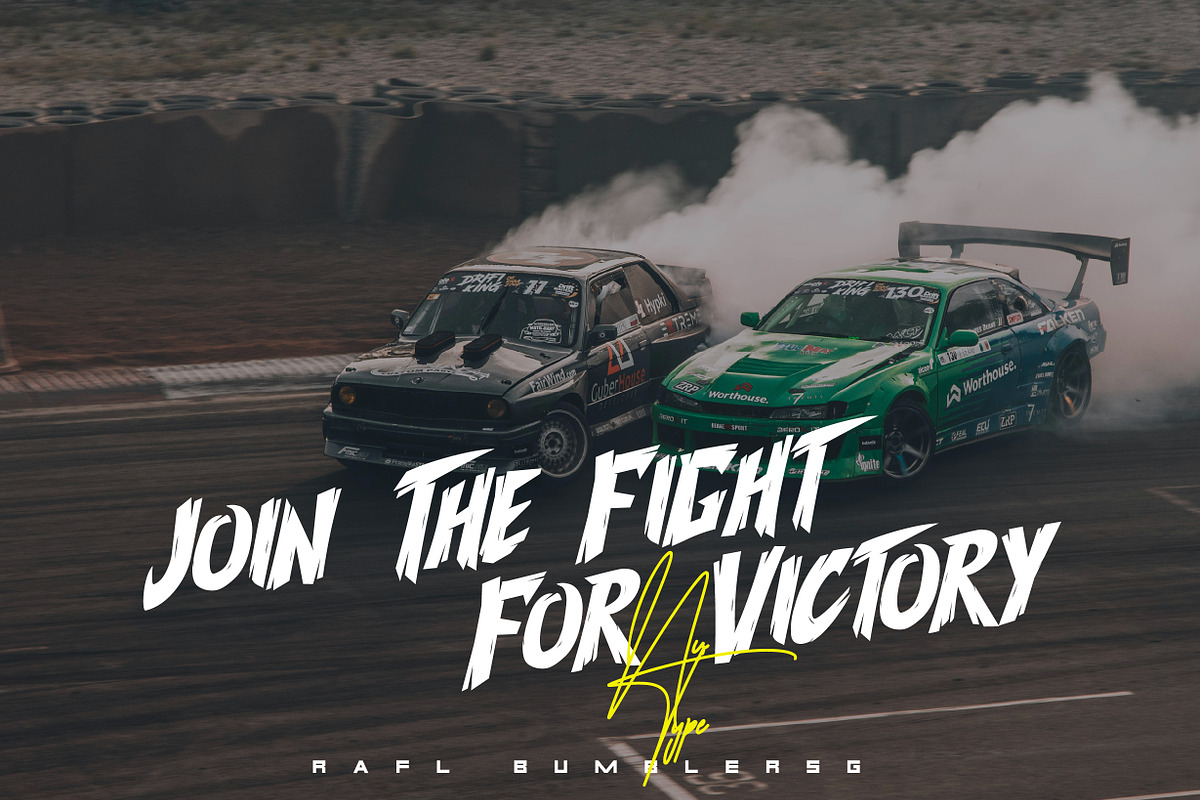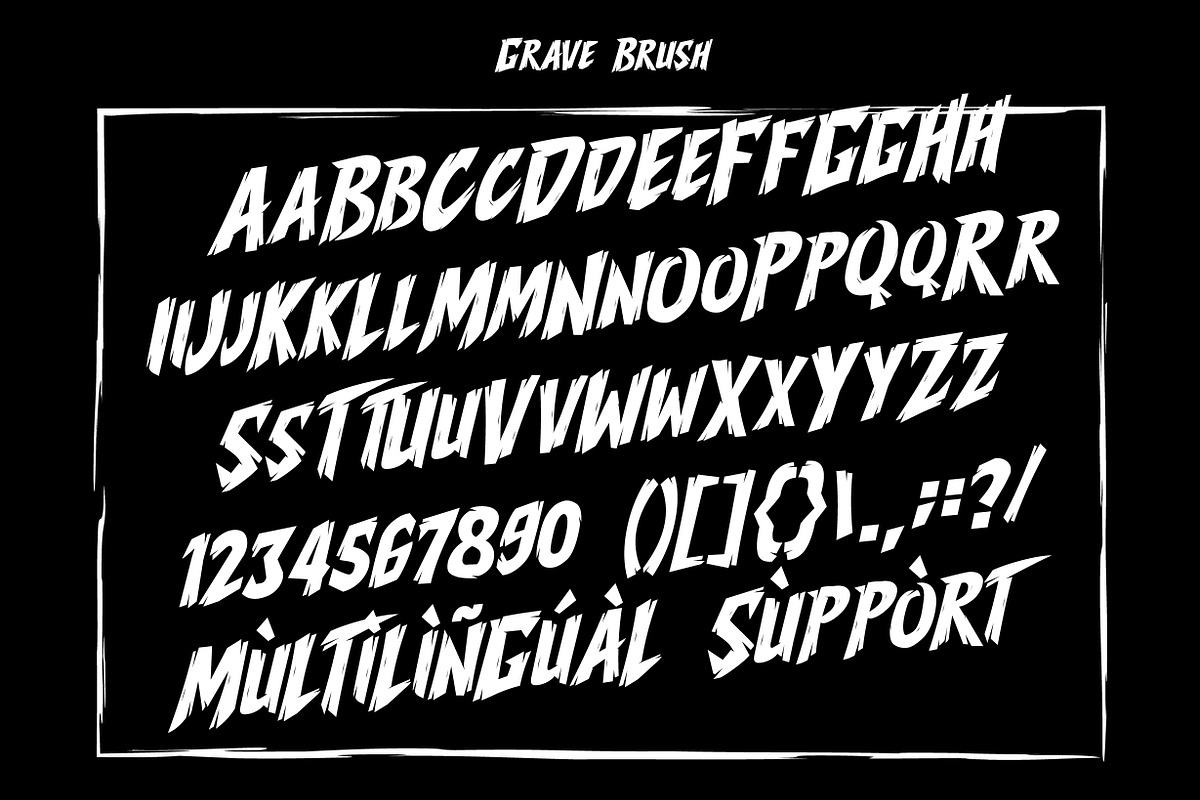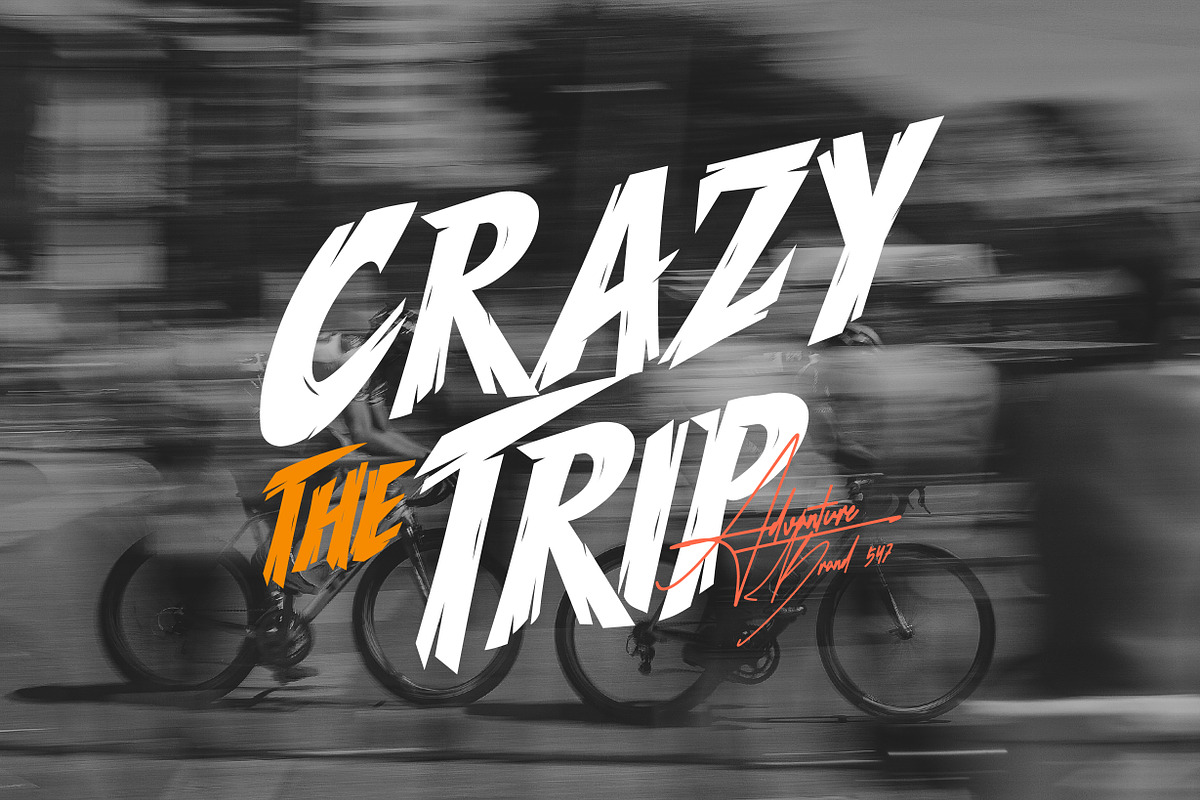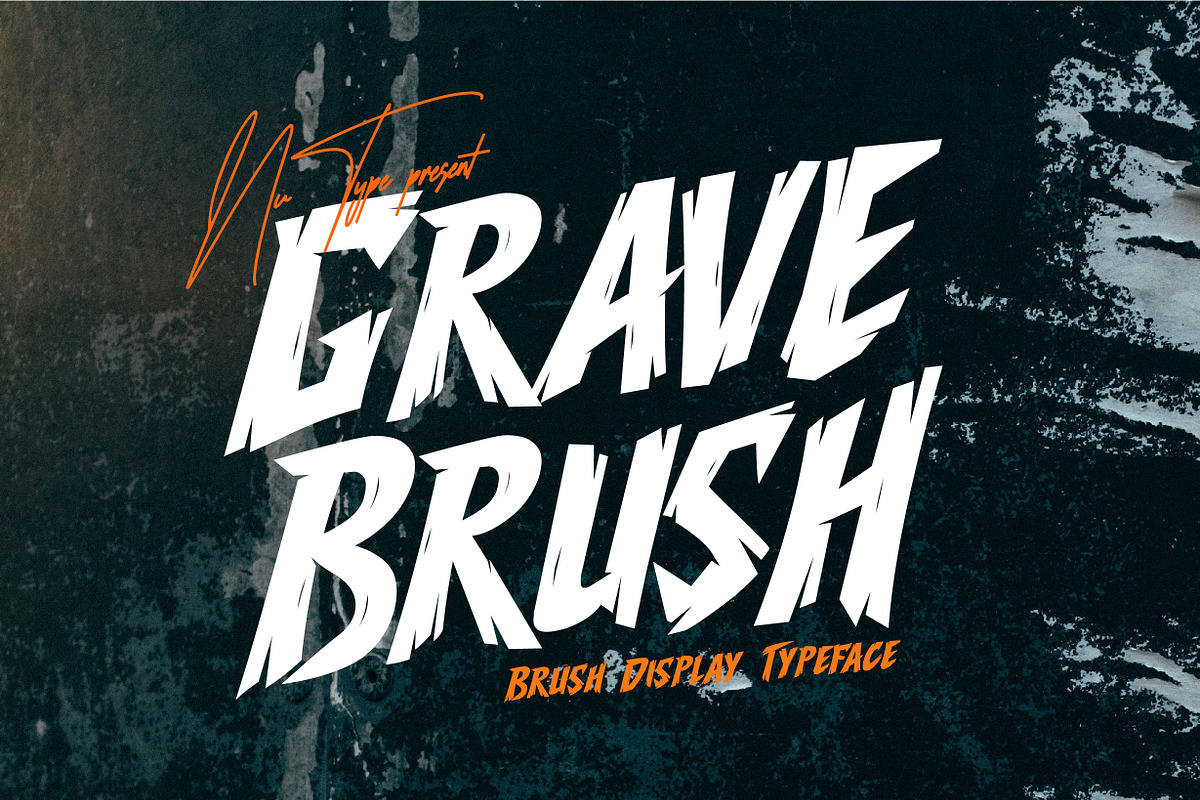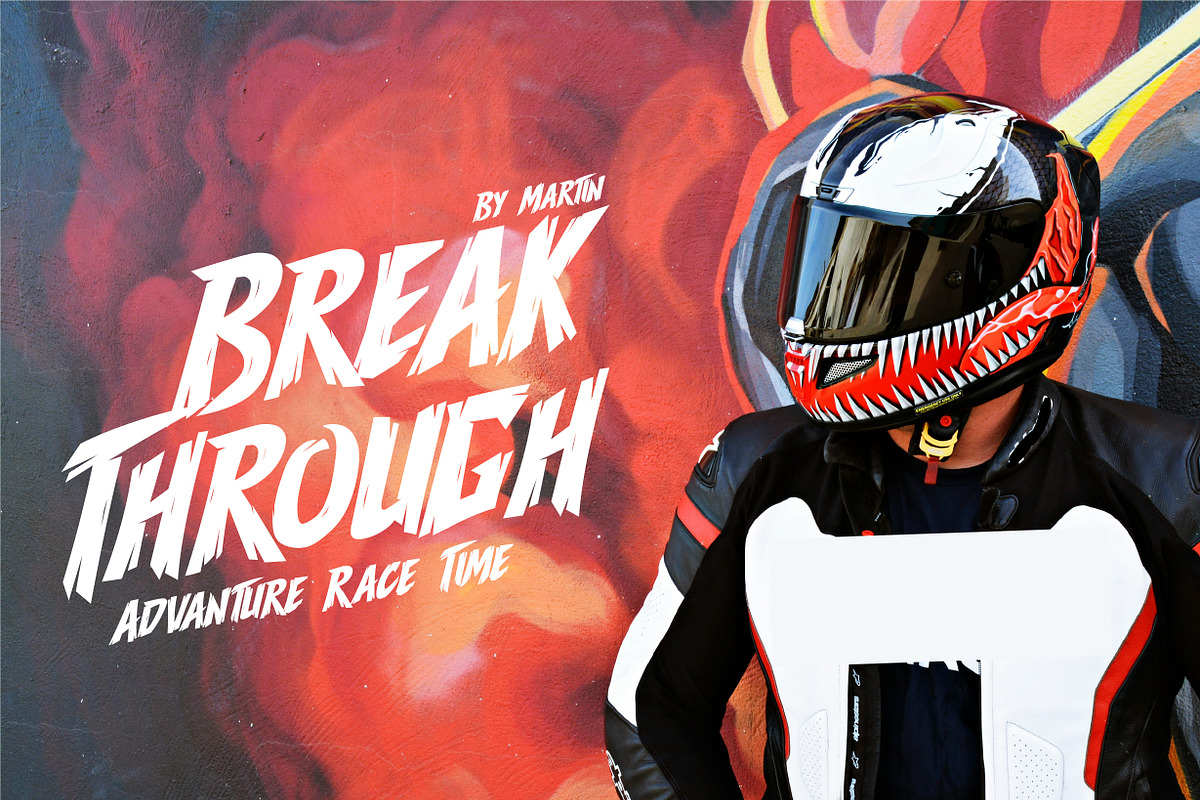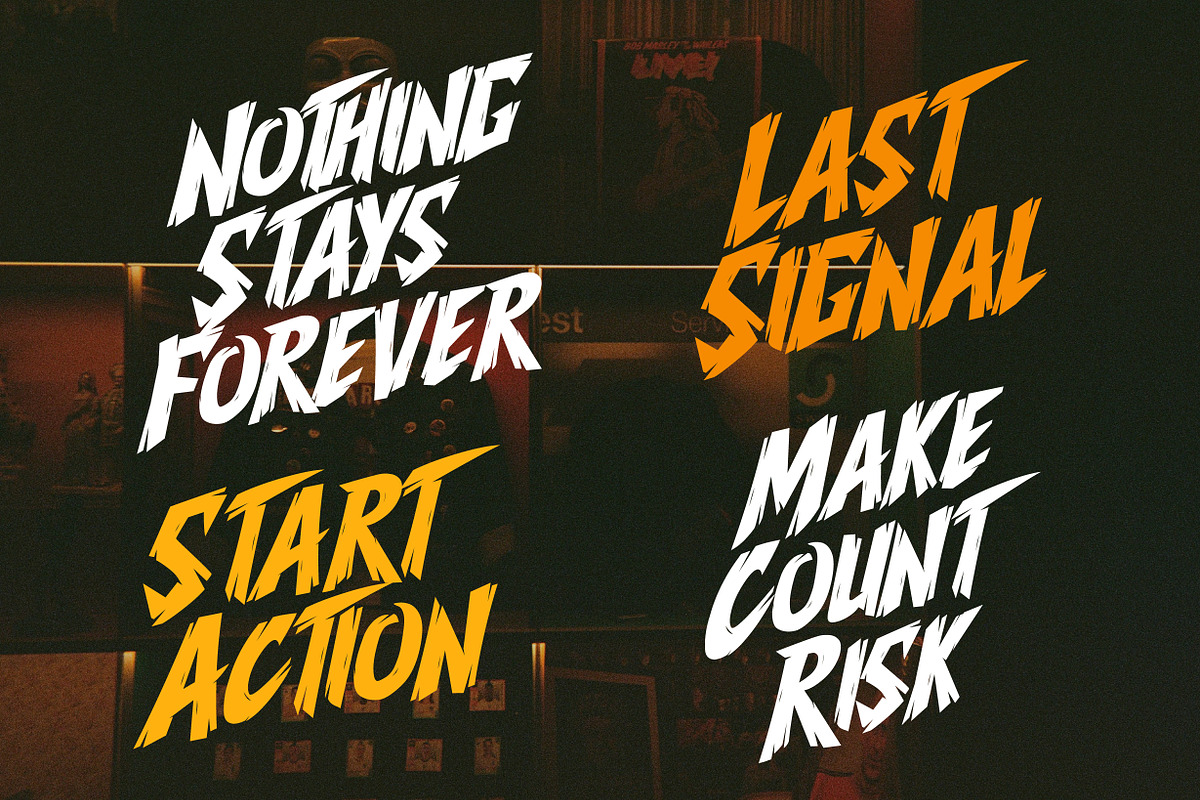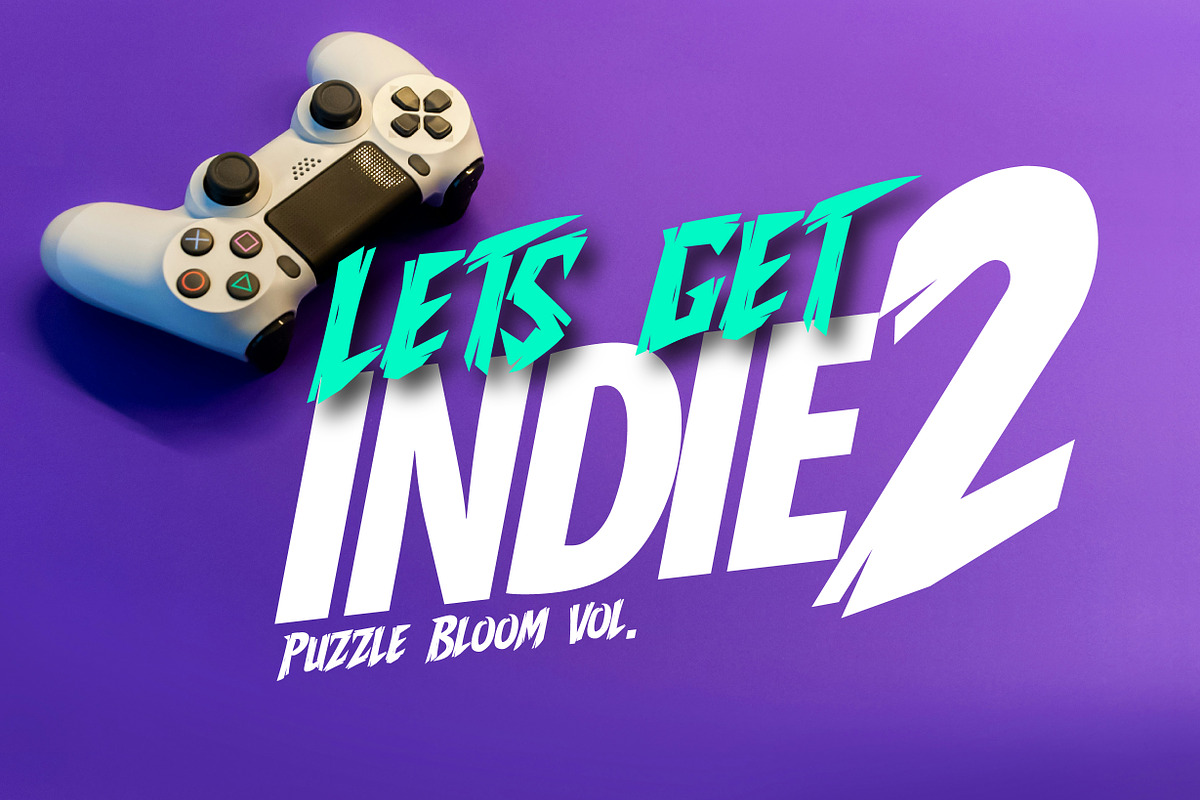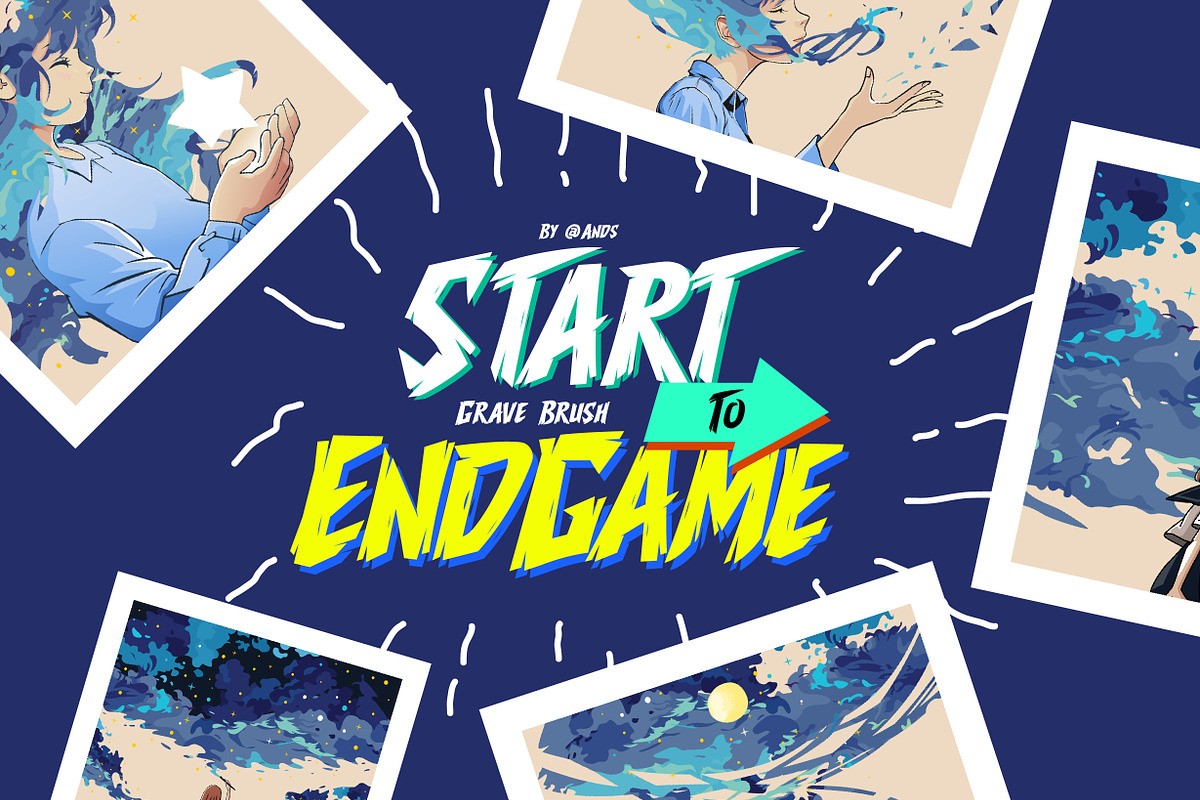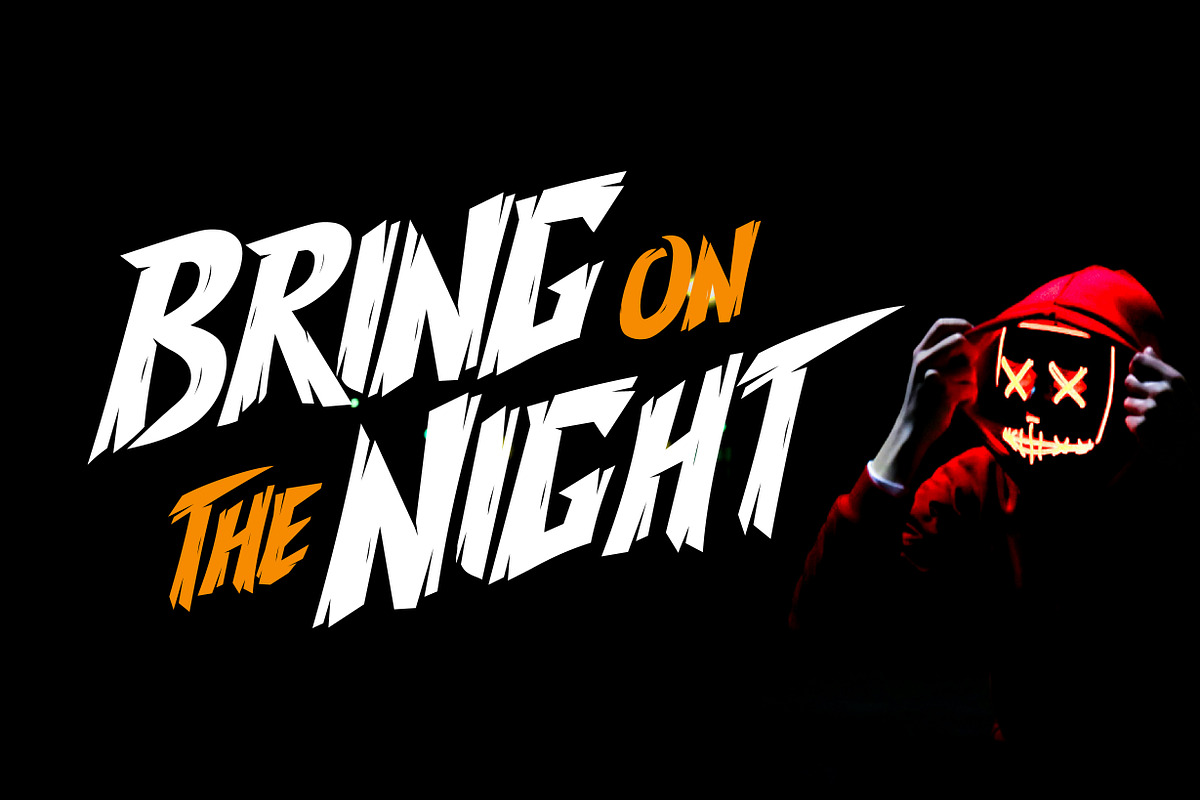
Brush - Display Brush Font
Grave Brush is a brush-style display typeface designed with a bold, sharp character and full of wild energy. Every curve and stroke of this letter creates an intense and dramatic atmosphere, making it an ideal choice for design projects that require an expressive and striking look.
With a rough structure but still clearly legible, Grave Brush is perfect for use in horror movie posters, metal / punk music covers, streetwear designs, to dark or alternative themed branding. Dynamic brush strokes and aggressive letterforms give a strong sense of movement and visual tension.
- Basic numbers and symbols
- Brush style inspired by real hand strokes
- Multilingual support (where available)
Grave Brush not only offers a strong visual appearance, but also gives personality and artistic character to each letter. Perfect for use in creative projects that demand visual boldness.